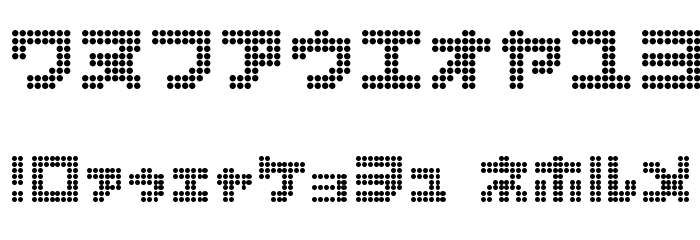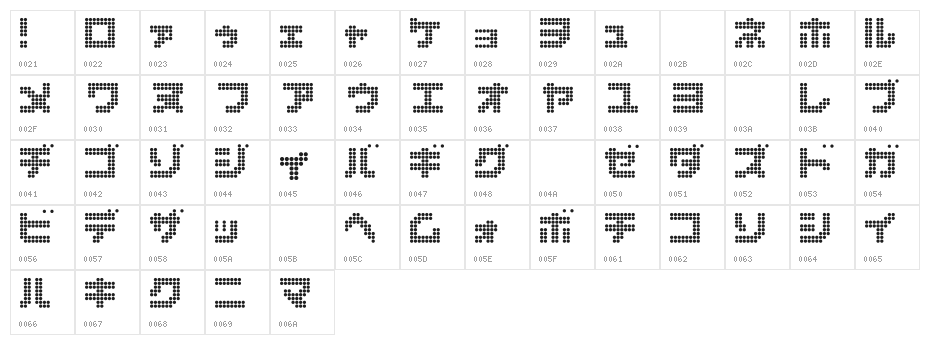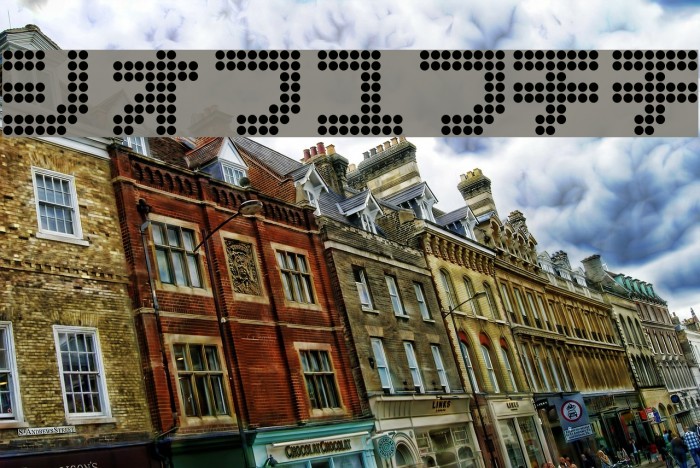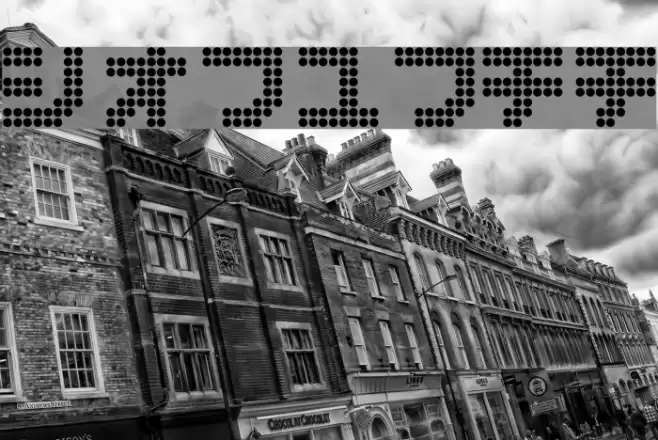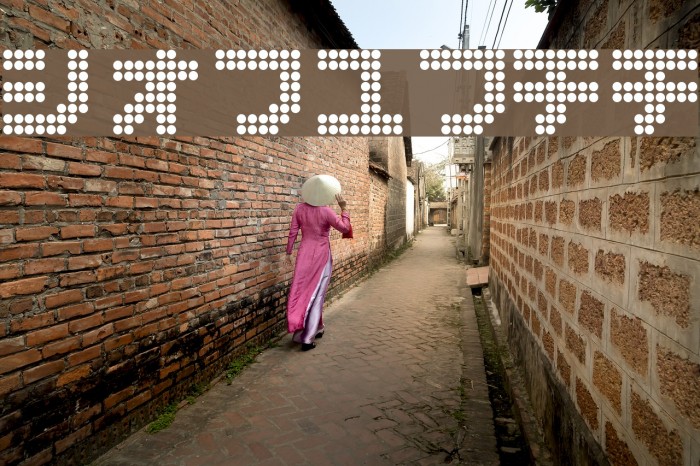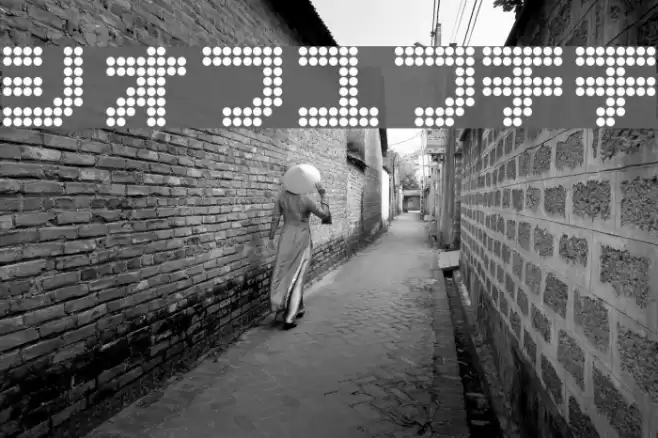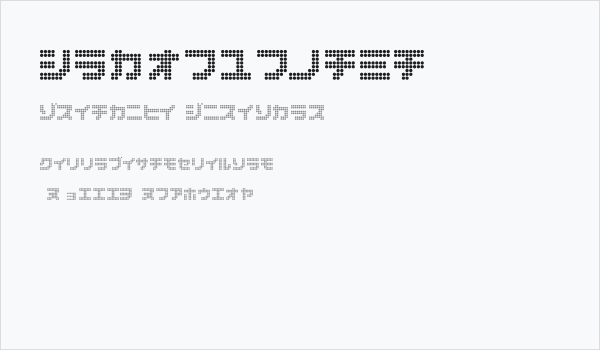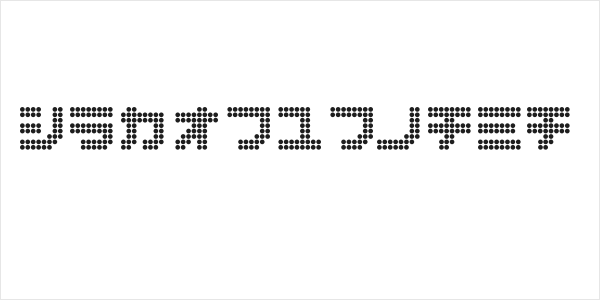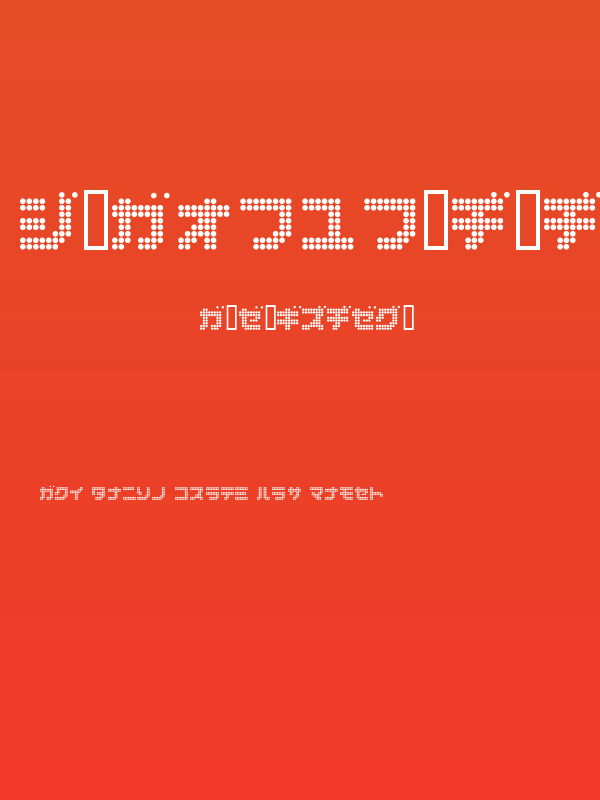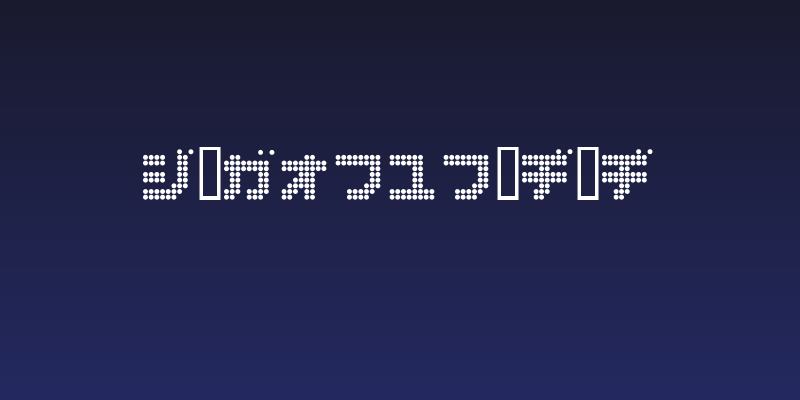
dot6282kana Font
dot6282kana Description
This font is a unique and creative design that uses a dot matrix style to form each character. The letters are composed of evenly spaced dots, creating a digital and modern appearance reminiscent of LED displays or vintage dot matrix printers. The uniformity of the dots gives the font a clean and structured look, while the spacing between the dots ensures legibility. This design is particularly effective for creating a retro or tech-inspired aesthetic. The font maintains consistency across all characters, providing a cohesive visual experience.
| Proposed Projects | Ideal for digital displays, retro-themed designs, tech-related branding, and creative posters. |